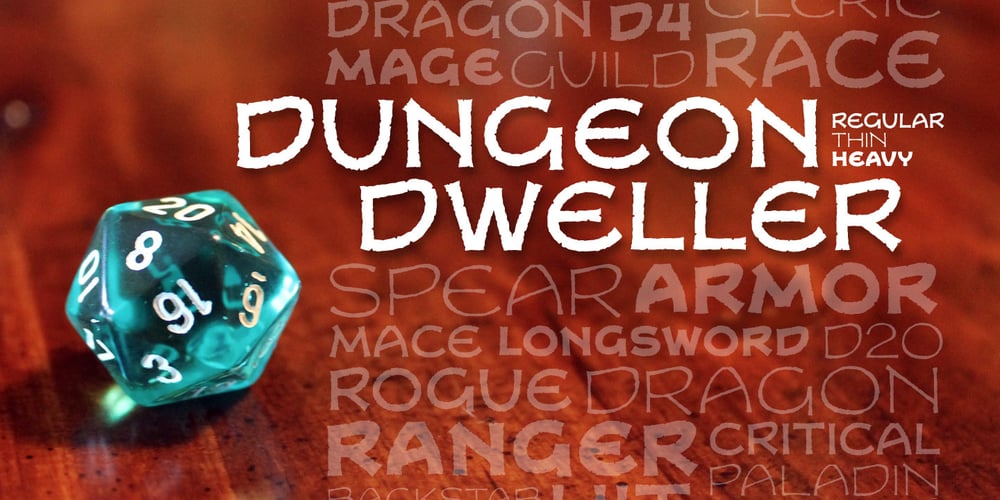
Dungeon Dweller BB Font Family was designed by Nate Piekos and published by Blambot. Dungeon Dweller BB contains 5 styles and family package options. Dungeon Dweller BB is a quasi-uncial font family inspired by table-top role playing games. Comes with Regular, Thin, and Heavy. Comprehensive European characters included.